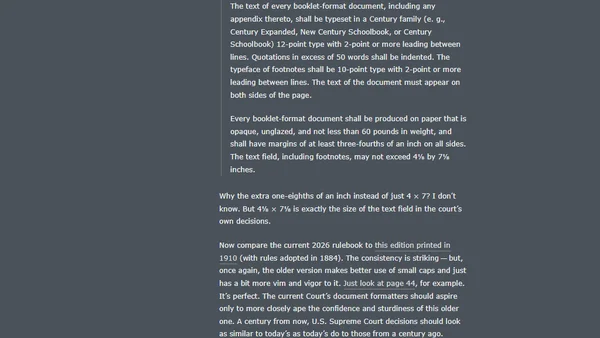
★ The Fonts of the U.S. Federal Courts
Read OriginalThis article explores the typographic styles used by the 13 circuits of the U.S. federal courts of appeals, comparing fonts such as Times New Roman, Courier New, Palatino, Century Schoolbook, and Equity. It highlights the typographic choices of each circuit, noting the Fifth Circuit's upgrade to Equity and the Supreme Court's consistent use of Century Schoolbook. The piece critiques readability and design, offering a detailed look at how font selection impacts legal documents. It is a niche but tech-related discussion of typography in a professional context.